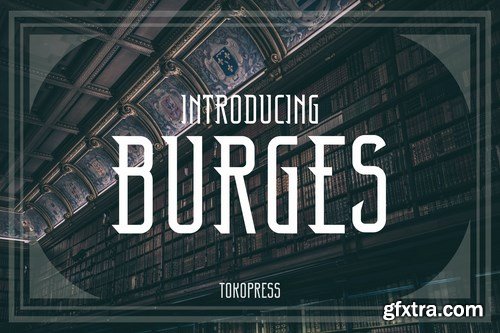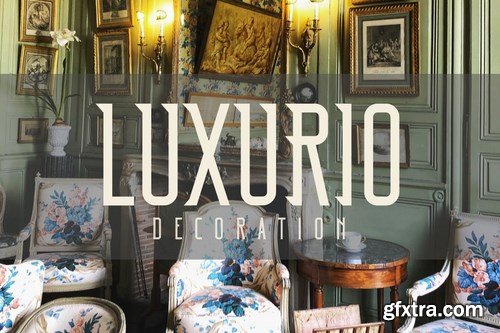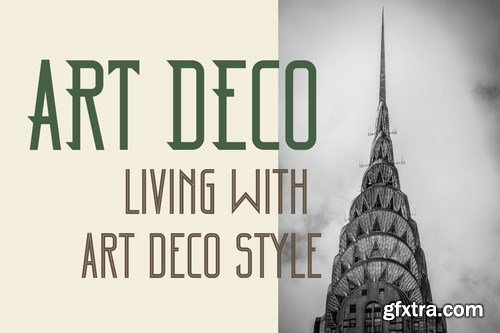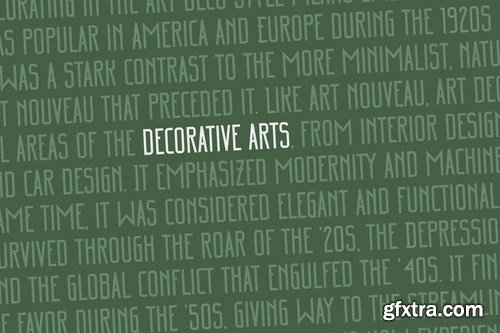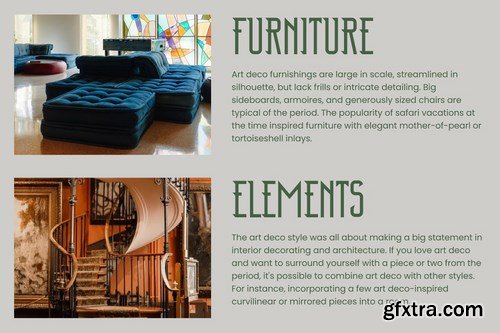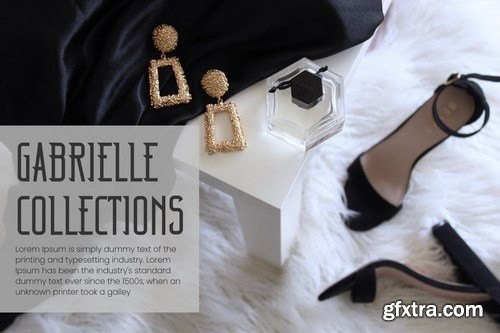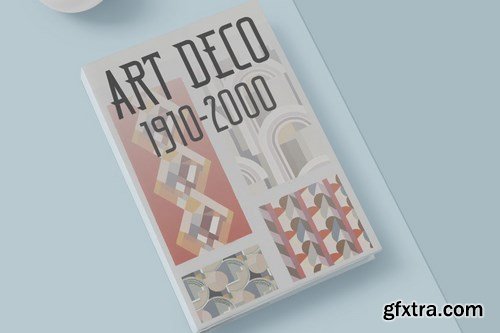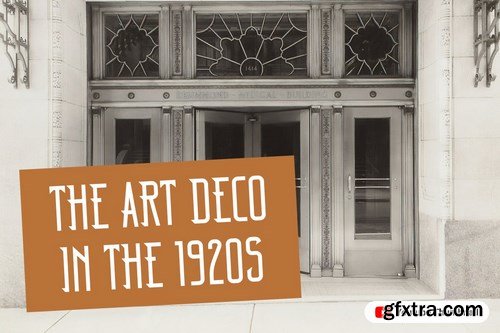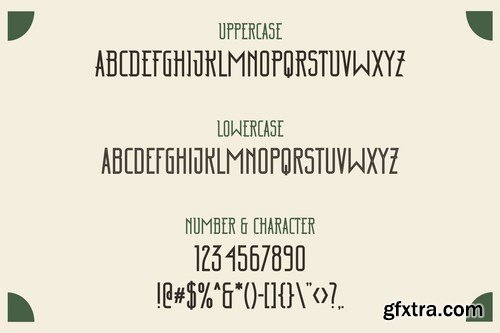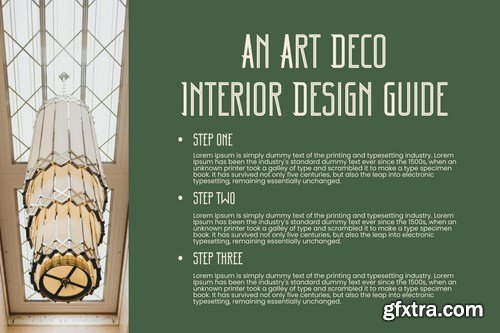
Taking an art deco look, Burges is all about classic, with solid uppercase, and inline lowercase, it bring a lot vintage feels in it.
Suit perfectly for high-end market audiences, poster, movie title, classic restaurant/ cafe menu, magazine, youtube covers, youtube thumbnails, social media page covers and so on...
Basic latin A-Z and a-z, numbers, punctuations